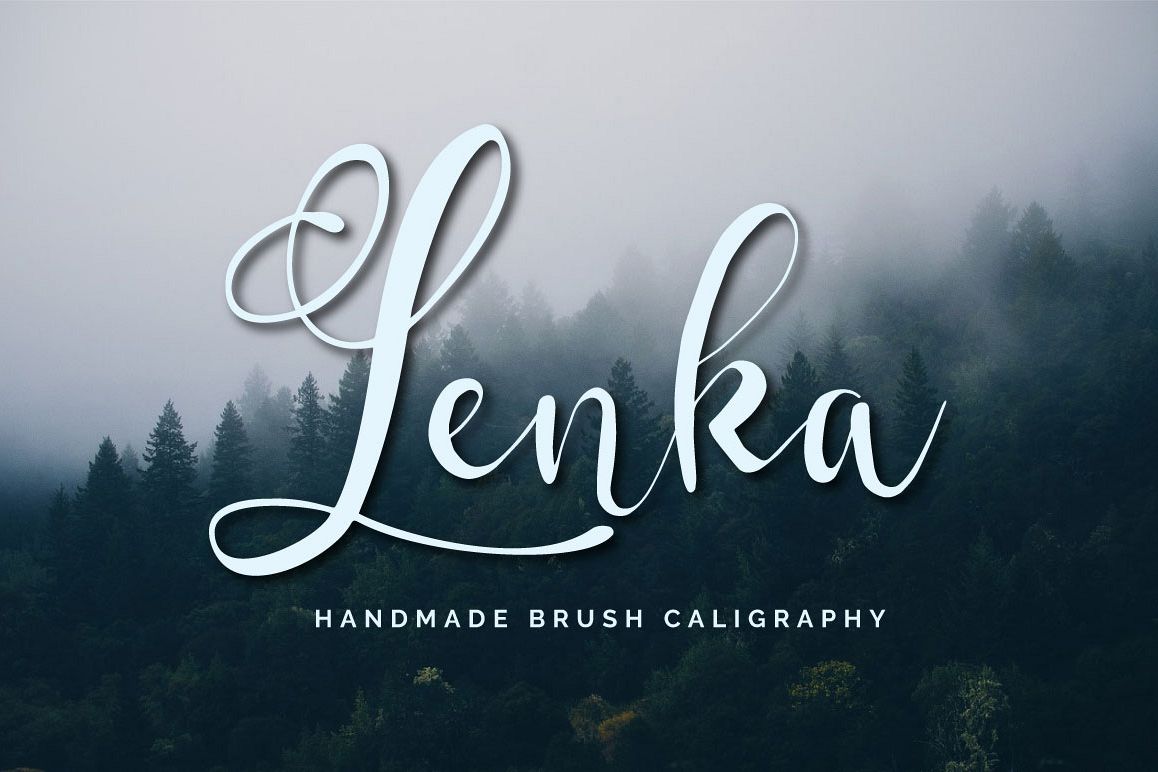
Lenka Brush Caligraphy
Lenka-Regular
Lenka Brush Caligraphy is an elegance brush calligraphy and natural hand writing. Lenka has 2 type of fonts ( OTF&TTF).This font was carefully made with passion and smoothness. It is suitable for wedding invitation, any greeting cards, retro / vintage design style and more!
Lenka Brush Caligraphy